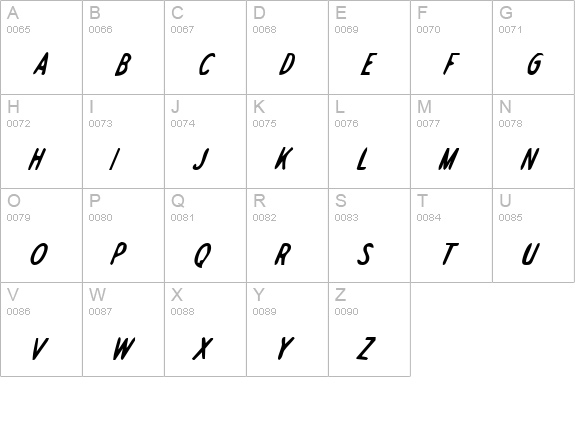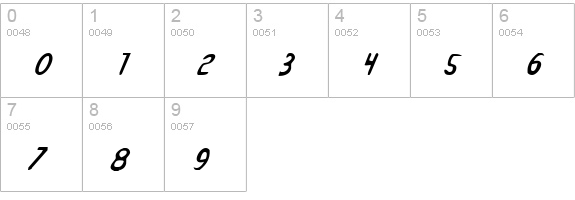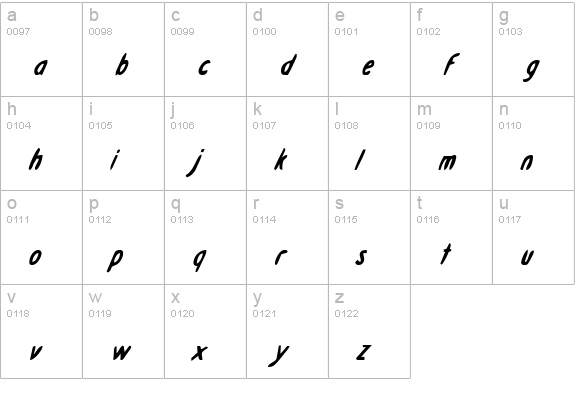
Drafting Table Bold Italic is a strong, high-contrast, italic variant in the Drafting typeface family \xE2\x80\x94 well suited to headlines, attention-grabbing titles, and strong calls-to-action.
Drafting Table Bold Italic is a modern and versatile font that exudes confidence and sophistication. Its bold strokes and elegant italics make it perfect for adding a touch of flair to your designs. Whether you're working on a poster, logo, or website, this font will make a bold statement while maintaining readability and style. And the best part? Drafting Table Bold Italic is available for free download at FontsMarket.com. So go ahead and enhance your projects with this stunning font without any cost. Let your creativity flow with Drafting Table Bold Italic and make your designs stand out from the crowd.